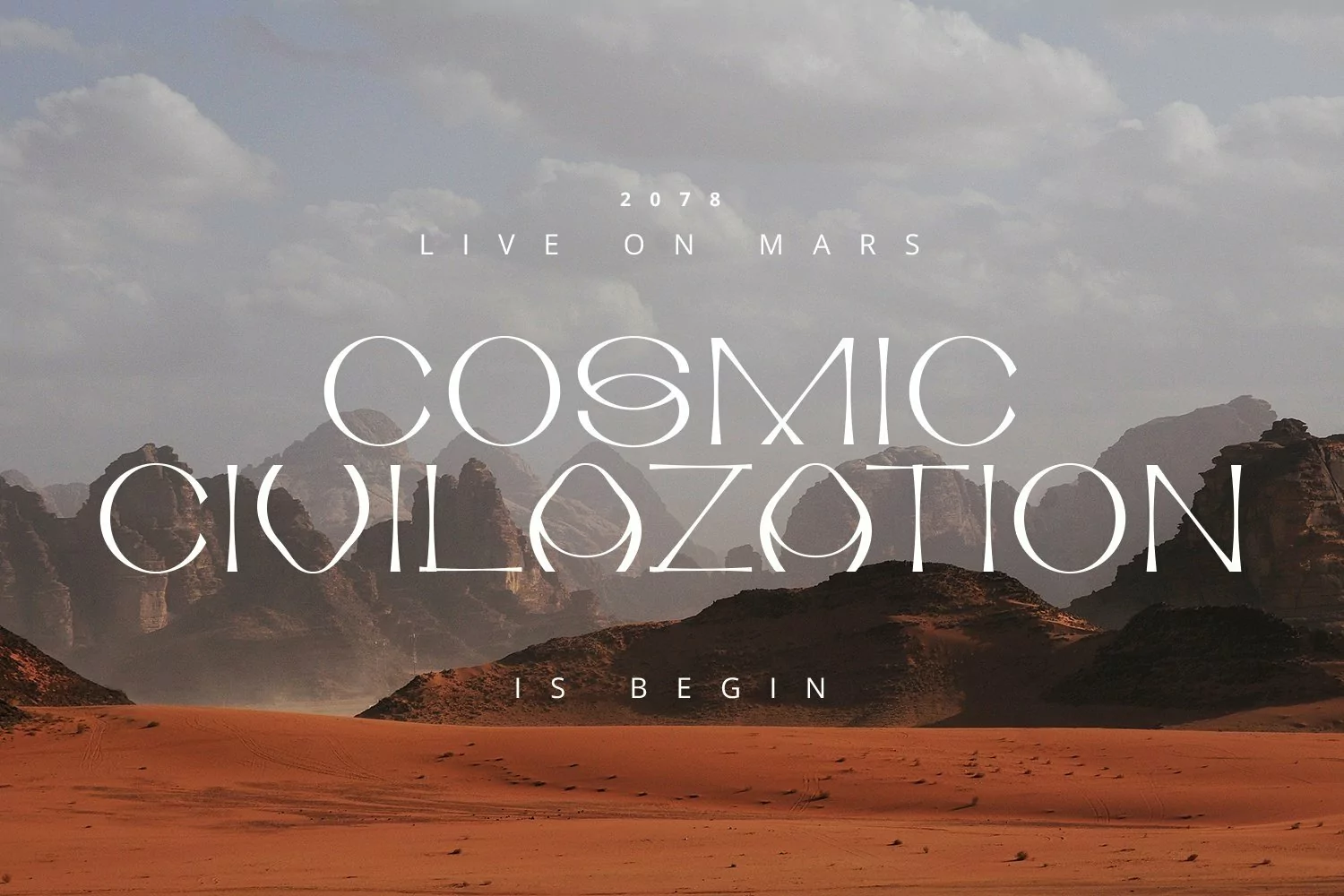
Web Font suitable for logotype, brand, packaging, quotes, music poster, t-shirt, cover book and more custom design. The features uppercase, lowercase, numeral, punctuation & symbol, multilingual support.